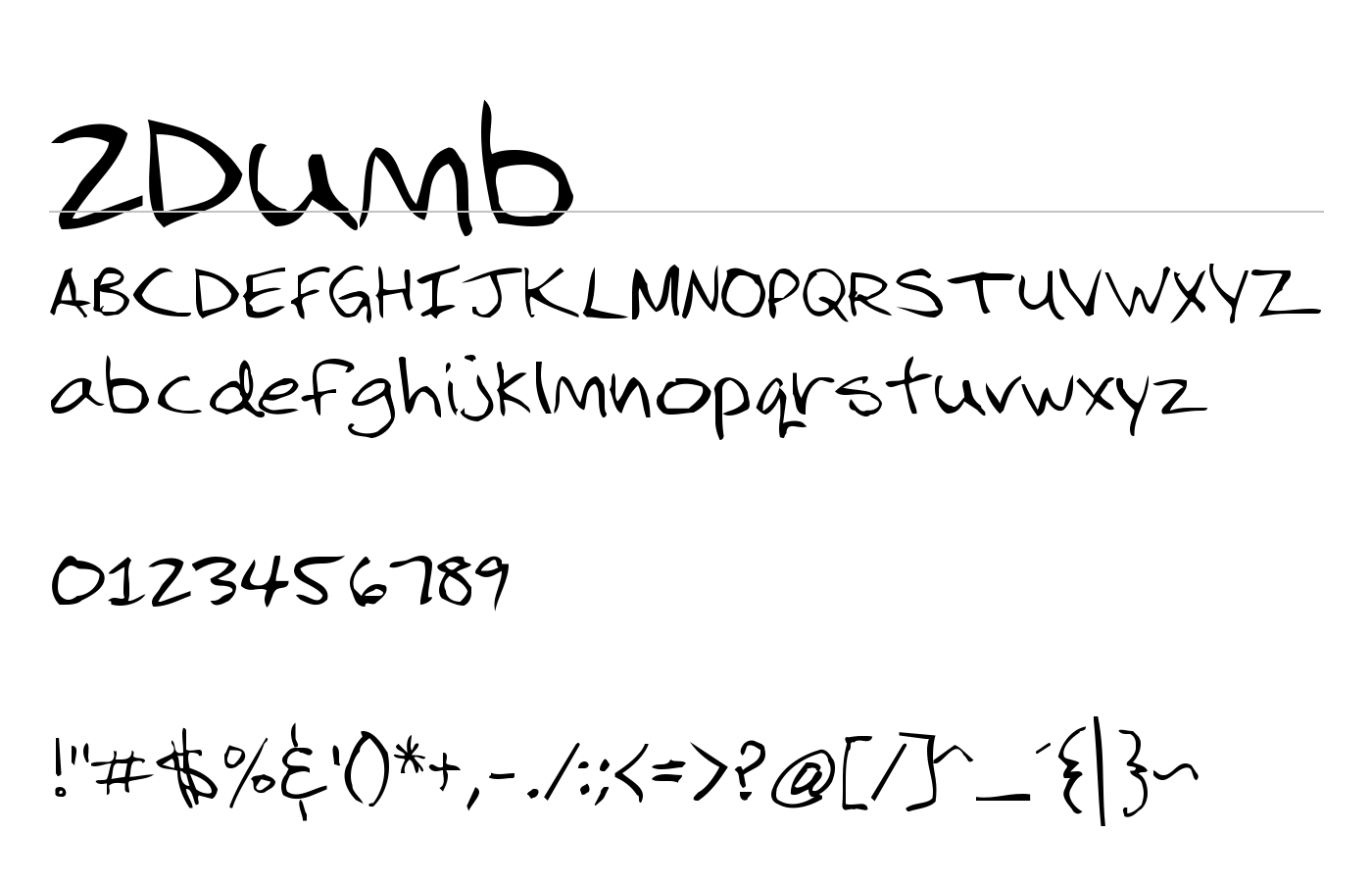
2Dumb Font is a playful, casual handwritten typeface that combines irregular, slightly quirky letterforms with a light weight and moderate contrast. Its informal, uneven strokes give it a friendly, approachable personality, making it ideal for creative projects, informal branding, children’s content, and any design that benefits from a relaxed, fun vibe. This font works well in headlines, posters, or whimsical packaging where a down-to-earth, personal touch is needed.
2Dumb Font
About 2Dumb Font
| Designer | Michael Tension |